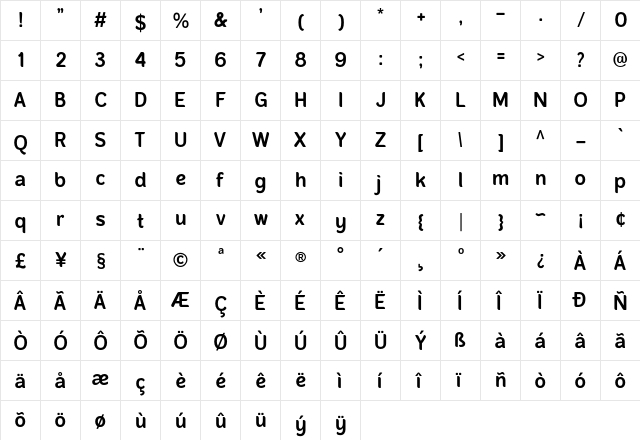
Banda Niera Medium
| Foundry | Arterfak Project |
| Designer | R A M Z |
Design Context for Banda Niera Typeface
Banda Niera takes a measured approach to typography — its balanced proportions and neutral character make it a reliable workhorse for both digital and print work.